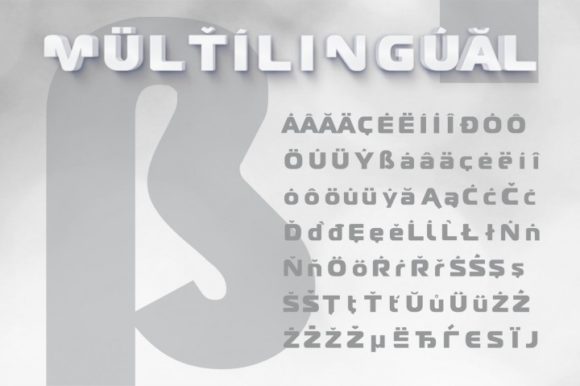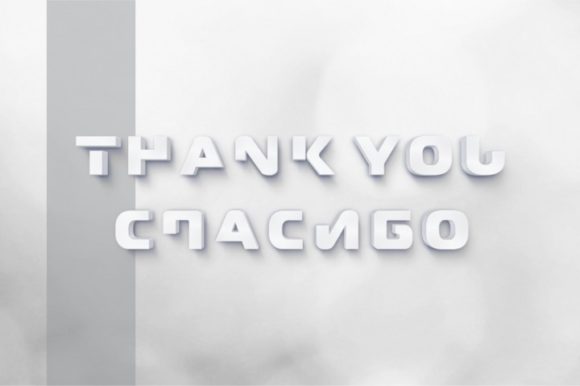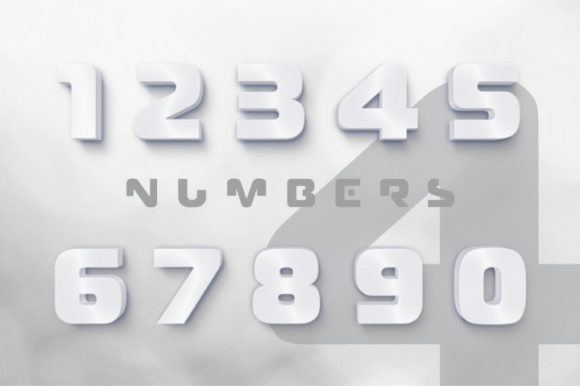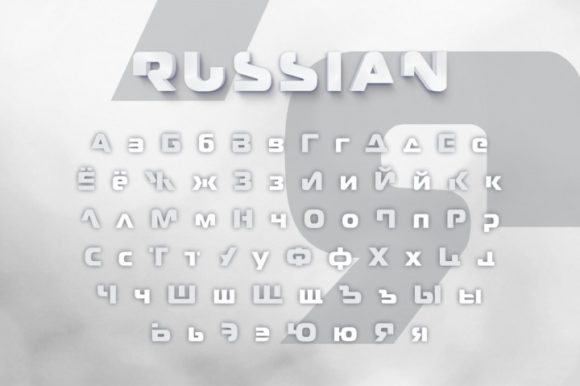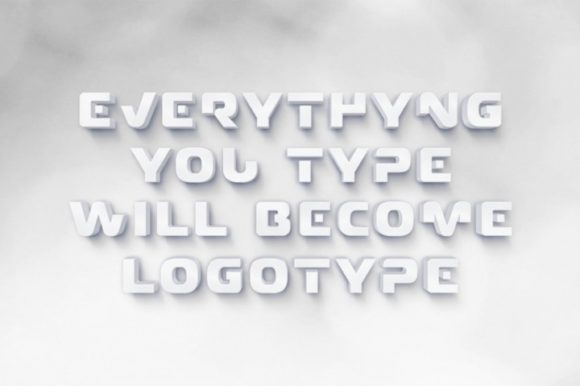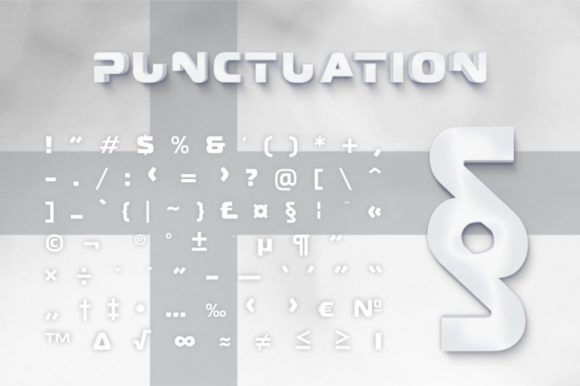
Discover the Power of Claudio Font: Elevate Your Designs with a Striking Display Font
Are you tired of using the same old fonts for your designs? Look no further than Claudio Font, a game-changing display font that’s perfect for creating stunning logos, headings, and titles. In this article, we’ll dive into the world of typography and explore the features, benefits, and uses of Claudio Font, as well as provide tips and inspiration for designers and crafters.
The Art of Typography: Making Written Language Legible, Readable, and Appealing
Typography is the art and technique of arranging type to make written language legible, readable, and appealing when displayed. It’s a crucial aspect of design, as it can make or break the visual impact of a piece. With the right font, you can convey your message, evoke emotions, and create a lasting impression on your audience. Claudio Font is a masterclass in typography, with its unique blend of style, sophistication, and playfulness.
What is Claudio Font?
Claudio Font is a striking display font designed to make a statement. Its bold, eye-catching design makes it perfect for logos, headings, titles, and any other text that needs to stand out. With its clean lines, elegant curves, and precise craftsmanship, Claudio Font is a versatile font that can be used in a wide range of design projects, from branding and advertising to packaging and digital media.
Key Features of Claudio Font
- Unique and distinctive design: Claudio Font boasts a one-of-a-kind design that’s sure to grab attention and leave a lasting impression.
- Highly legible: Despite its bold design, Claudio Font is highly legible, even at small sizes, making it perfect for use in a variety of design applications.
- Versatile: Claudio Font can be used in a wide range of design projects, from logos and branding to headings, titles, and more.
- Easily customizable: Claudio Font is easy to customize, allowing you to tailor it to your specific design needs.
Benefits of Using Claudio Font
So why choose Claudio Font for your design projects? Here are just a few benefits of using this amazing display font:
- Instant impact: Claudio Font is designed to make a statement, adding instant impact and visual interest to your designs.
- Professional look and feel: With Claudio Font, you can add a touch of sophistication and elegance to your designs, giving them a professional look and feel.
- Time-saving: Claudio Font is easy to use and customize, saving you time and effort in your design projects.
- Endless creative possibilities: Claudio Font is a versatile font that can be used in a wide range of design applications, offering endless creative possibilities.
Tips for Using Claudio Font
Here are a few tips for getting the most out of Claudio Font:
- Use it sparingly: Claudio Font is a bold font, so use it sparingly to avoid overwhelming your design.
- Experiment with colors and textures: Claudio Font looks great in a variety of colors and textures, so don’t be afraid to experiment and find the perfect combination for your design.
- Pair it with other fonts: Claudio Font pairs well with a variety of other fonts, so try pairing it with a complementary font to add visual interest to your design.
Inspiration and Ideas for Designers and Crafters
Need some inspiration for using Claudio Font in your design projects? Here are a few ideas to get you started:
- Logos and branding: Claudio Font is perfect for creating stunning logos and branding materials that make a lasting impression.
- Headings and titles: Use Claudio Font to add visual interest to your headings and titles, making them stand out on the page.
- Packaging design: Claudio Font is a great choice for packaging design, adding a touch of elegance and sophistication to your product packaging.
- Digital media: Claudio Font can be used in a variety of digital media, including social media graphics, website headers, and more.